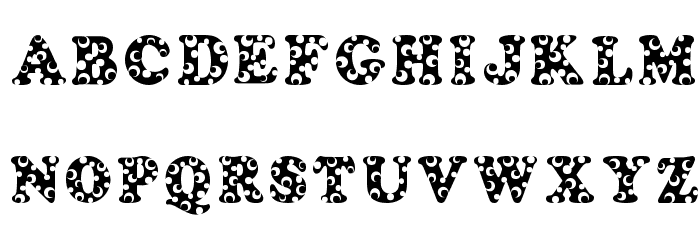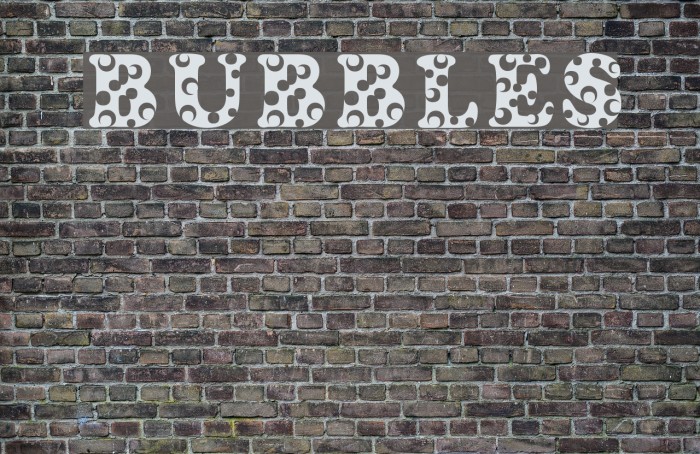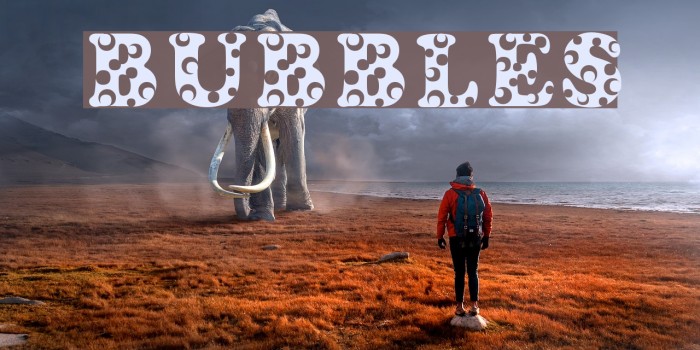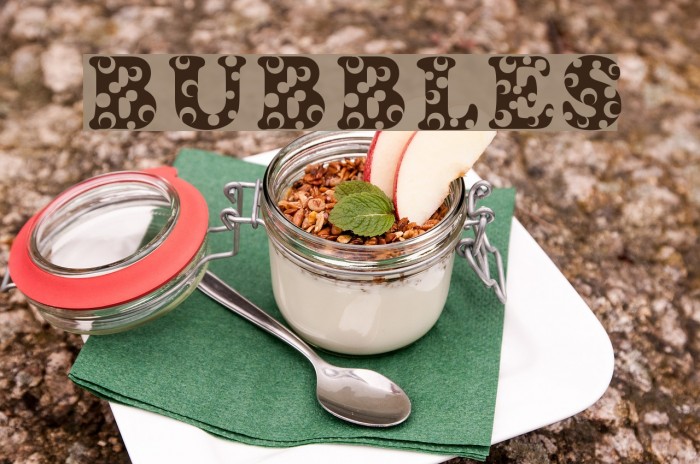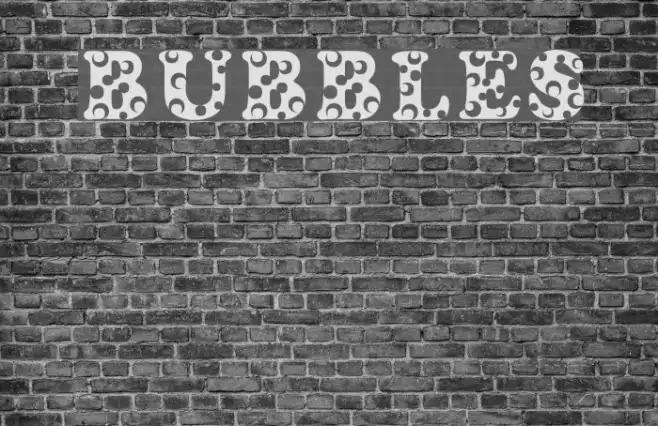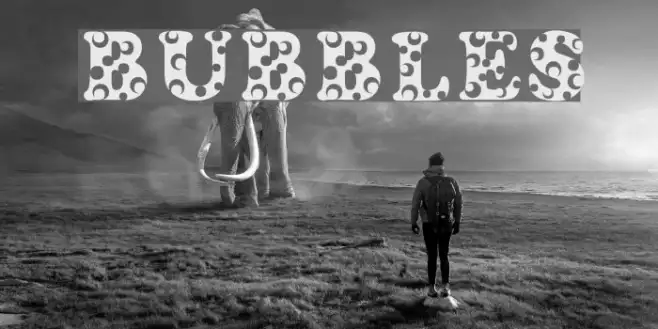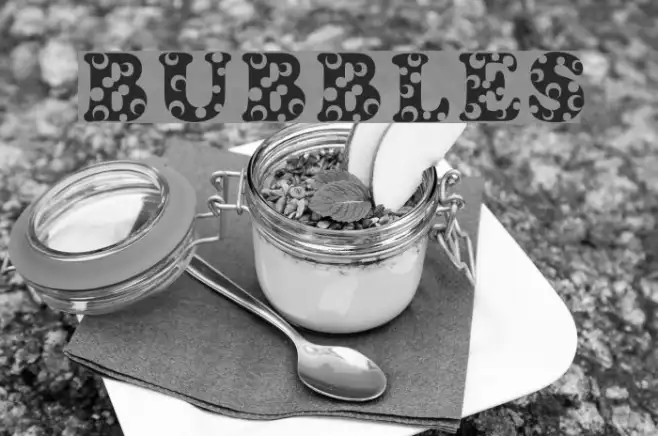
Bubbles Font
This playful and whimsical font features bold, rounded characters filled with circular cutouts, resembling bubbles. The design is highly decorative, making it ideal for eye-catching displays. Each letter is crafted with a consistent pattern of circular voids, giving the font a unique and lively appearance. The boldness of the characters ensures readability while maintaining a fun and engaging aesthetic. This font is perfect for projects that require a touch of creativity and playfulness, such as children's books, party invitations, or playful branding.
A bold, decorative font with bubble-like cutouts for a playful look.
- Proposed Projects: Ideal for children's books, party invitations, playful branding, and creative displays.
- Overall Style: Playful, Whimsical